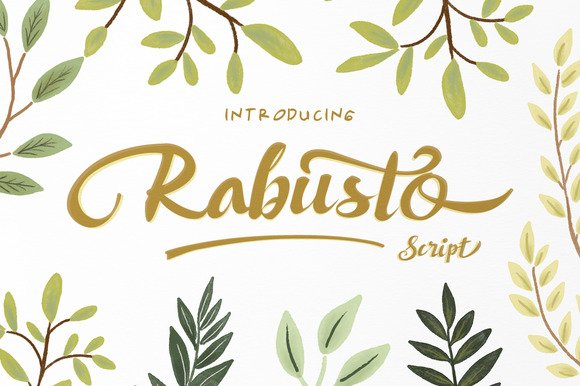
Rabusto Script
Rabusto Script , a sweet and lovely script with Opentype features gives you more alternatives in designing. Perfect for designing book covers, film covers, apparel, cards, logos, posters, etc.